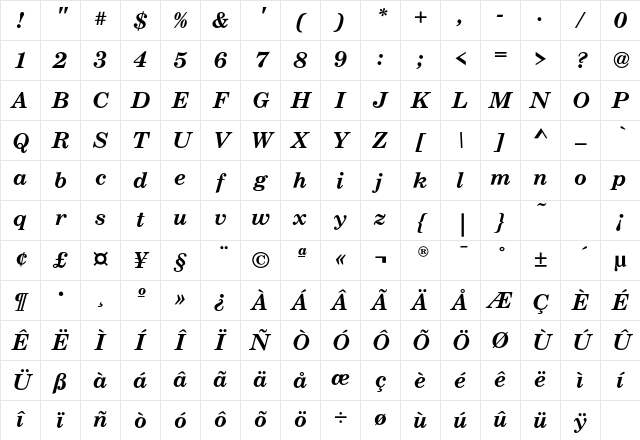
Complete CenturySchoolbookEF BolIta glyph index. Displaying only characters natively supported by CenturySchoolbookEF BolIta font.
CenturySchoolbookEF is a composed and adaptable typeface that performs quietly and consistently across a wide range of design contexts.